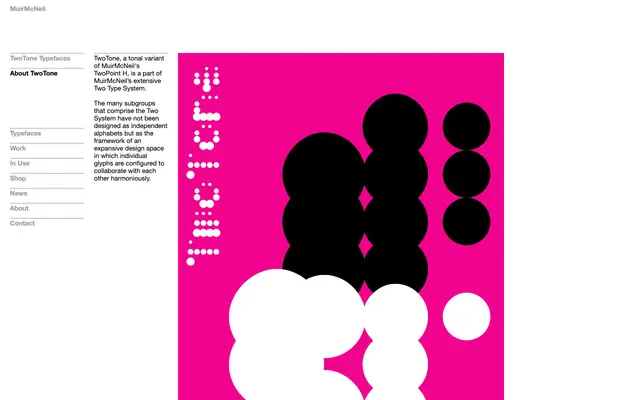
TwoTone
A tonal variant of TwoPoint H, designed as part of MuirMcNeil's broader Two Type System in which glyphs are configured to work together as a cohesive framework rather than as independent letterforms.
TwoTone sits within MuirMcNeil's extensive Two Type System, a modular framework built from multiple subgroups designed to function collectively rather than as separate alphabets. Each glyph is shaped to collaborate harmoniously with others across the system, making TwoTone most effective when used alongside its sibling variants. The tonal character of the face distinguishes it from TwoPoint H, its direct counterpart within the system.
TwoTone is a tonal variant within a larger modular type system, designed for visual collaboration between glyphs rather than as a standalone text face, placing it firmly in the display category.